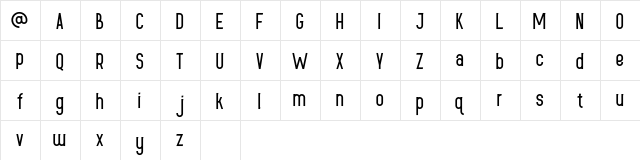
LڅUE Regular
| Designer | Dedi Agus Setiawan |
Design Context for LڅUE Typeface
LڅUE offers clean, dependable letterforms without strong stylistic allegiance, making it a practical choice for designers who need flexibility.